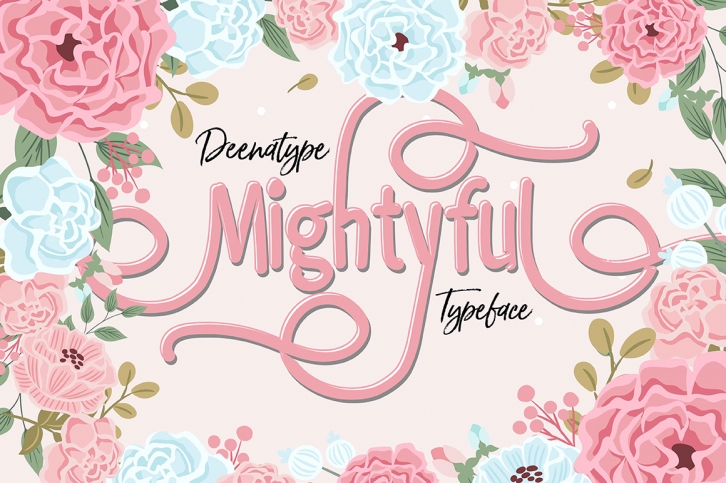
Mightyful Typeface is a trendy and unique font with an authentic style. It was designed by Deenatype and it's a great choice for creative people who need such a font. It was released on January 6, 2019 and the file size is 21.72 MB. Mightyful Typeface will add an organic vibe to any design idea!